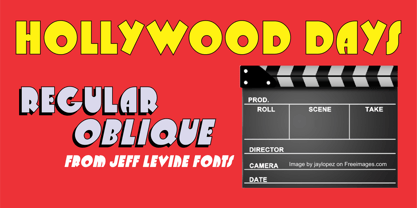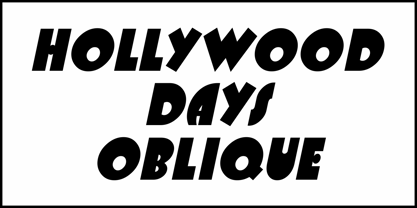
Hollywood Days JNL
by Jeff Levine
The Hollywood Days JNL Font Family was designed by Jeff Levine and published by Jeff Levine. Hollywood Days JNL contains 2 styles and family package options.
The hand lettered title on a movie poster for the 1928 film "Easy Virtue" was done in an ultra bold, casual sans serif design.
This early bit of Art Deco typography is now available as Hollywood Days JNL in both regular and oblique versions.